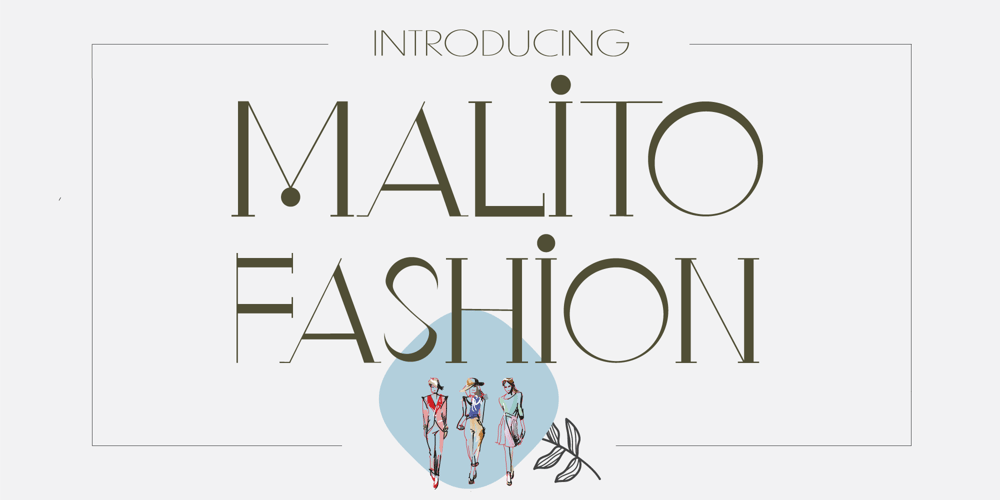
Malito Fashion
Malito Fashion font
Malito Fashion Font Family was designed by Ake Thanantreesak and published by Ake. Malito Fashion contains 1 styles and family package options. Malito Fashion is an elegant, thin lettered and stylish serif font. It is defined by smoothness and delicacy and is perfect for fashion branding or editorial designs. Add it confidently to your projects, and you will love the results.